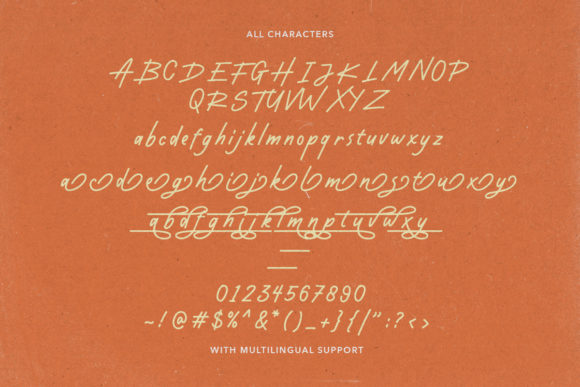
Dustyland Script Font: Elevate Your Design with a Touch of Vintage Elegance
In the realm of typography, fonts play a crucial role in conveying the tone and aesthetic of a design. Among the myriad of font styles available, the Dustyland Script Font stands out for its unique blend of modernity and vintage charm. This monoline script font, with its subtle touch of vintage look and feel, is perfectly crafted for a variety of design applications, including logos, headlines, signage, and more.
The Essence of Dustyland Script Font
Dustyland Script is a thoughtfully designed monoline script font that exudes a sense of elegance and sophistication. Its monoline characteristic means that the font is constructed from a single line, providing a clean and streamlined appearance. The addition of a vintage touch gives it a distinctive flair, making it versatile for use in both modern and traditional design contexts.
Key Features of Dustyland Script Font
- Monoline Script: The font’s monoline design offers a sleek and contemporary look, suitable for a wide range of design projects.
- Vintage Touch: A subtle vintage feel adds character and warmth to the font, making it perfect for designs that require a bit of nostalgia.
- Versatility: Dustyland Script is highly versatile, making it ideal for use in various design applications, from logos and signage to invitations and packaging.
- Elegance and Sophistication: The font’s elegant flow and sophisticated appearance make it an excellent choice for high-end branding and luxury designs.
Design Applications for Dustyland Script Font
The versatility of Dustyland Script Font makes it suitable for a multitude of design applications. Here are some of the areas where this font truly shines:
Logos and Branding
A logo is often the first impression a brand makes on its audience. With Dustyland Script, designers can create memorable and impactful logos that convey a sense of sophistication and elegance. The font’s unique blend of modern and vintage elements makes it an excellent choice for brands looking to stand out.
Headlines and Signage
For headlines and signage, visibility and style are paramount. Dustyland Script Font offers both, with its clean lines and vintage charm capturing attention and adding a touch of class to any signage or headline.
Invitations and Stationery
The elegance of Dustyland Script makes it perfect for invitations, including wedding invites, birthday cards, and other formal events. Its sophisticated appearance also lends itself well to stationery designs, such as letterheads and notebooks.
Packaging and Labels
In the world of product packaging, standing out on the shelves is crucial. Dustyland Script can add a touch of luxury and sophistication to product packaging and labels, making products more appealing to potential customers.
Fashion and Beauty
The fashion and beauty industries rely heavily on aesthetics. Dustyland Script Font can be used in fashion magazines, beauty blogs, and advertising campaigns to add a touch of glamour and elegance.
Why Choose Dustyland Script Font?
Choosing the right font for a design project can be daunting, given the numerous options available. Here are some reasons why Dustyland Script Font should be at the top of your list:
- Unique Aesthetic: The font’s blend of monoline and vintage elements offers a unique aesthetic that’s hard to find elsewhere.
- High Versatility: Its suitability for a wide range of design applications makes it a valuable addition to any designer’s toolkit.
- Ease of Use: The clean and simple design of Dustyland Script ensures it’s easy to read and use in various contexts.
- Timeless Appeal: The vintage touch gives the font a timeless quality, ensuring it won’t go out of style anytime soon.
Dustyland Script Font is a remarkable typeface that brings together the best of modern and vintage design. Its monoline script with a touch of vintage look and feel makes it an ideal choice for designers looking to add a touch of elegance and sophistication to their projects. Whether it’s for logos, headlines, signage, or any other design application, Dustyland Script is sure to make a lasting impression.